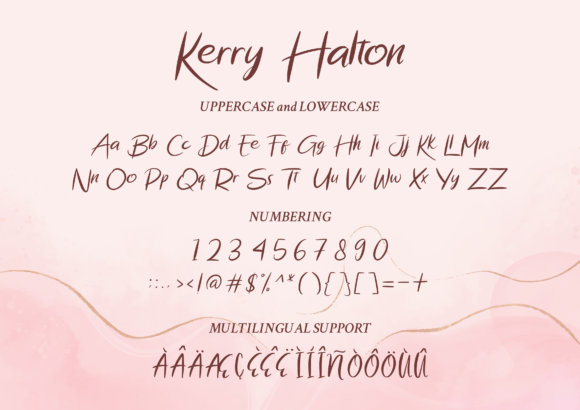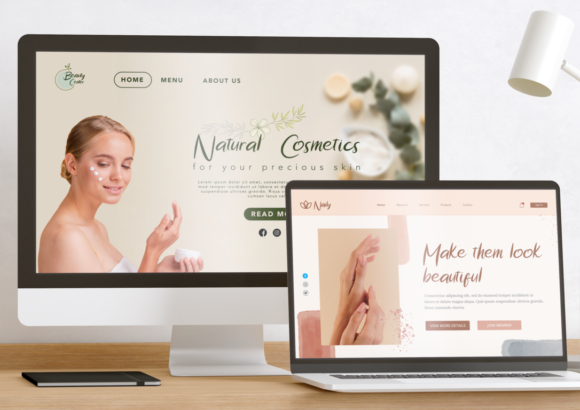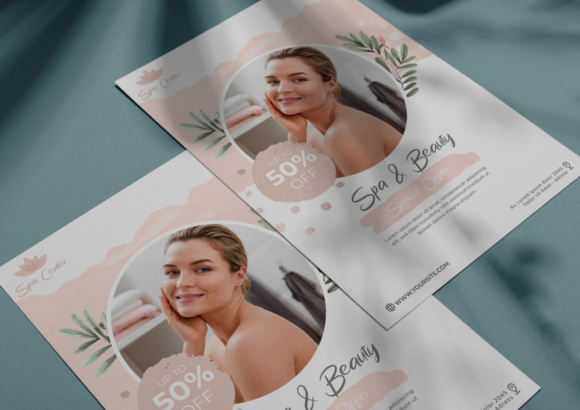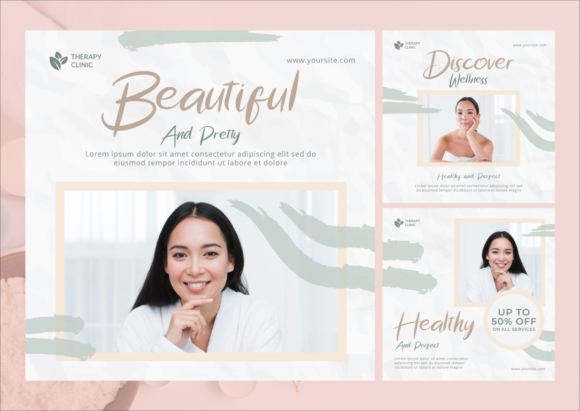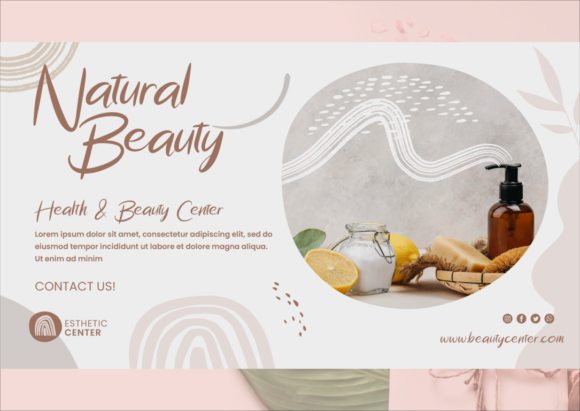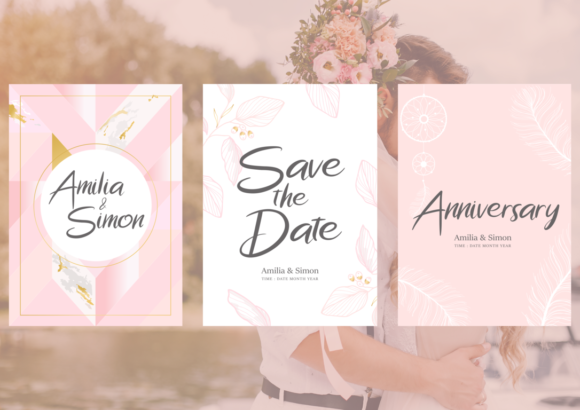
Introduction to Kerry Halton Font
As you sit at your desk, surrounded by scattered papers and half-finished designs, you stumble upon the perfect idea for your next creative project. The vision is clear – a beautiful, elegant design that exudes luxury and sophistication. But, you’re stuck on the perfect font to bring your vision to life. This is where the Kerry Halton Font comes in – a stunning, romantic calligraphy typeface that will add a touch of magic to any design project.
The Kerry Halton Font is more than just a design resource – it’s a game-changer. With its unique, flowing characters that dance along the baseline, this font is sure to elevate any design to new heights. Whether you’re working on a high-end branding project or a whimsical wedding invitation, the Kerry Halton Font is the perfect addition to your toolkit.
Key Features of Kerry Halton Font
- Unique and elegant script font designed for creative projects and various design resources.
- Comes in a transparent background, allowing for seamless integration into various design elements.
- High-resolution font, suitable for use at various sizes and resolutions, including print and digital applications.
- Designed in a size range of 8-72 points, providing versatility for use in various design contexts.
- Perfect for adding a touch of sophistication and elegance to creative projects, from invitations to branding materials.
Honest Review: Kerry Halton Font
As a designer, I’m always on the lookout for high-quality fonts to elevate my creative projects. Recently, I stumbled upon the Kerry Halton Font, and I’m excited to share my thoughts with you.
- High-quality design: The Kerry Halton Font is well-crafted and has a clean, elegant feel to it.
One thing that doesn’t work as well is that the font may not be suitable for all design projects, especially those that require a more modern or edgy look. ⚠️ Additionally, the font may not be as versatile as some other fonts on the market.
How to Use Kerry Halton Font
The Kerry Halton Font is a versatile design resource ideal for various creative projects. This high-quality font features a transparent background, making it a great addition to any design.
Tips for Getting the Most Out of Kerry Halton Font
To get the most out of the Kerry Halton Font, experiment with different font sizes, colors, and combinations. You can also use it to create custom graphics and illustrations.
Common Use Cases for Kerry Halton Font
The Kerry Halton Font is suitable for a wide range of creative projects, including graphic design, digital art, and typography. You can use it to create eye-catching logos, branding materials, and marketing collateral.
Does the Kerry Halton Font have a transparent background?
Yes, the Kerry Halton Font has a transparent background, making it ideal for use on images with complex backgrounds. This feature allows you to easily composite the font with other design elements and create visually appealing compositions.